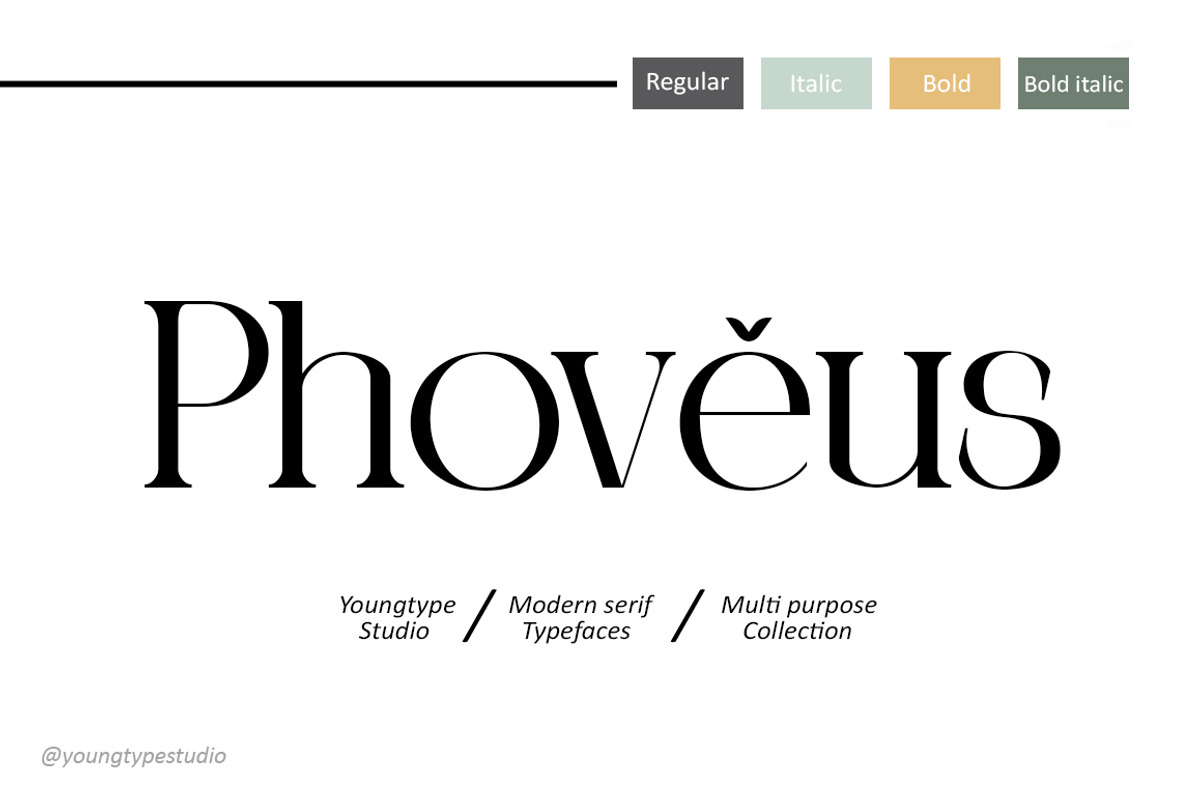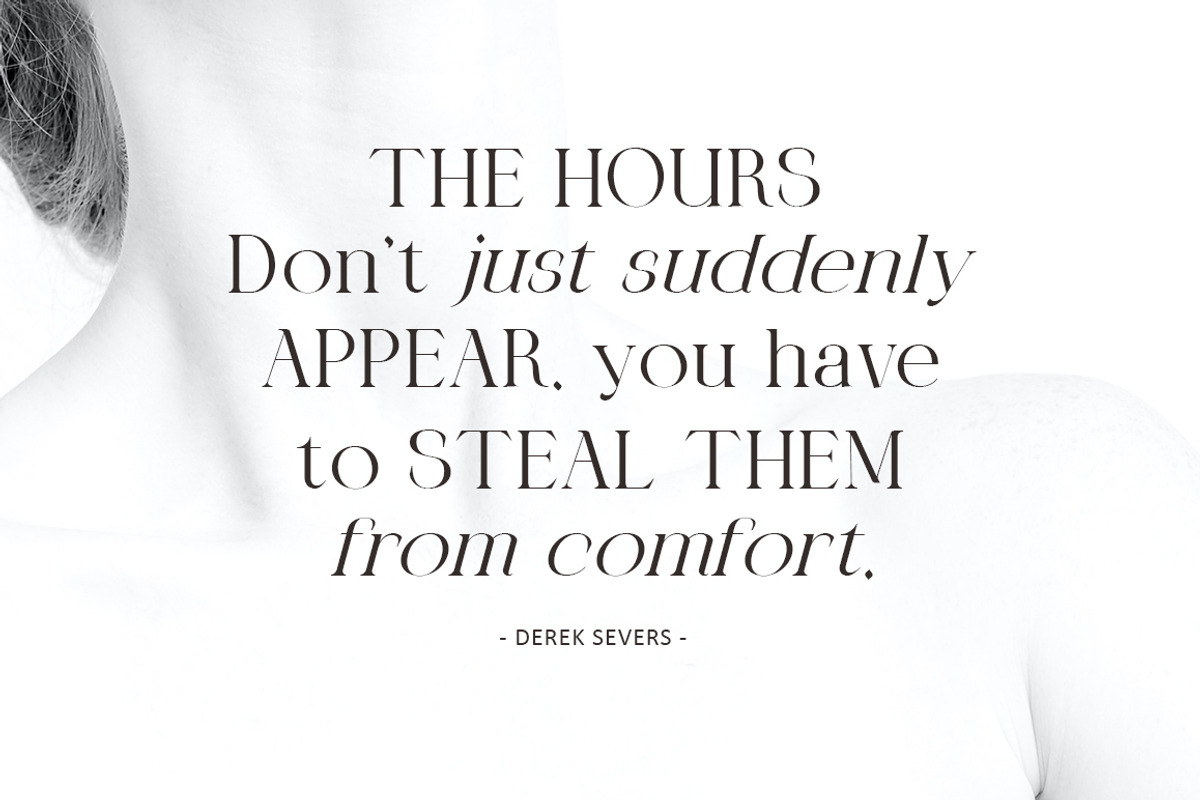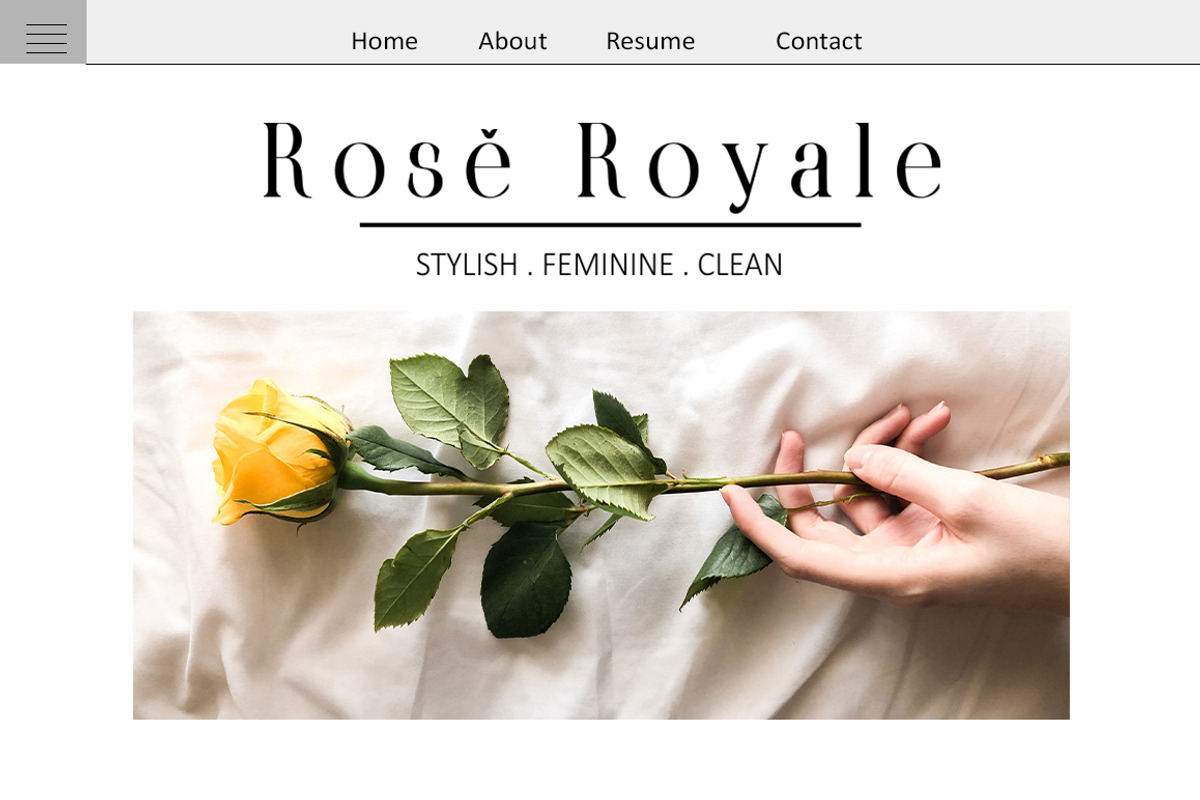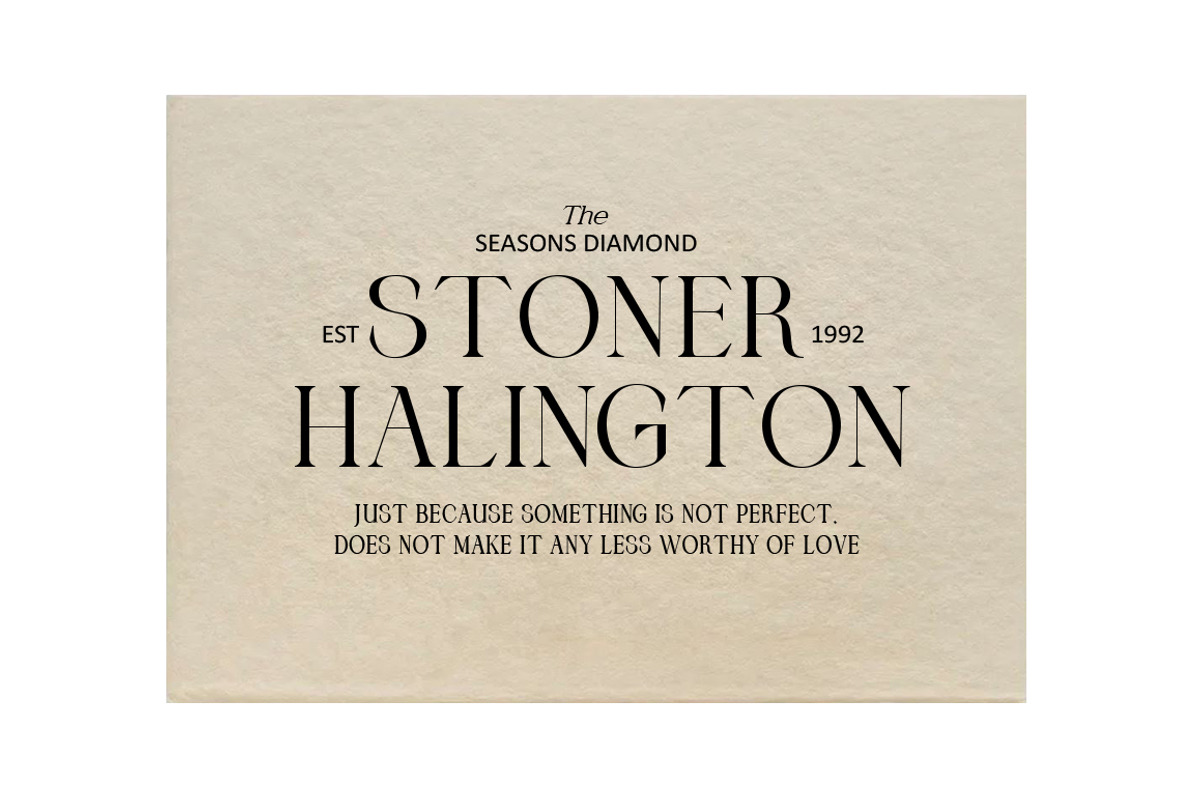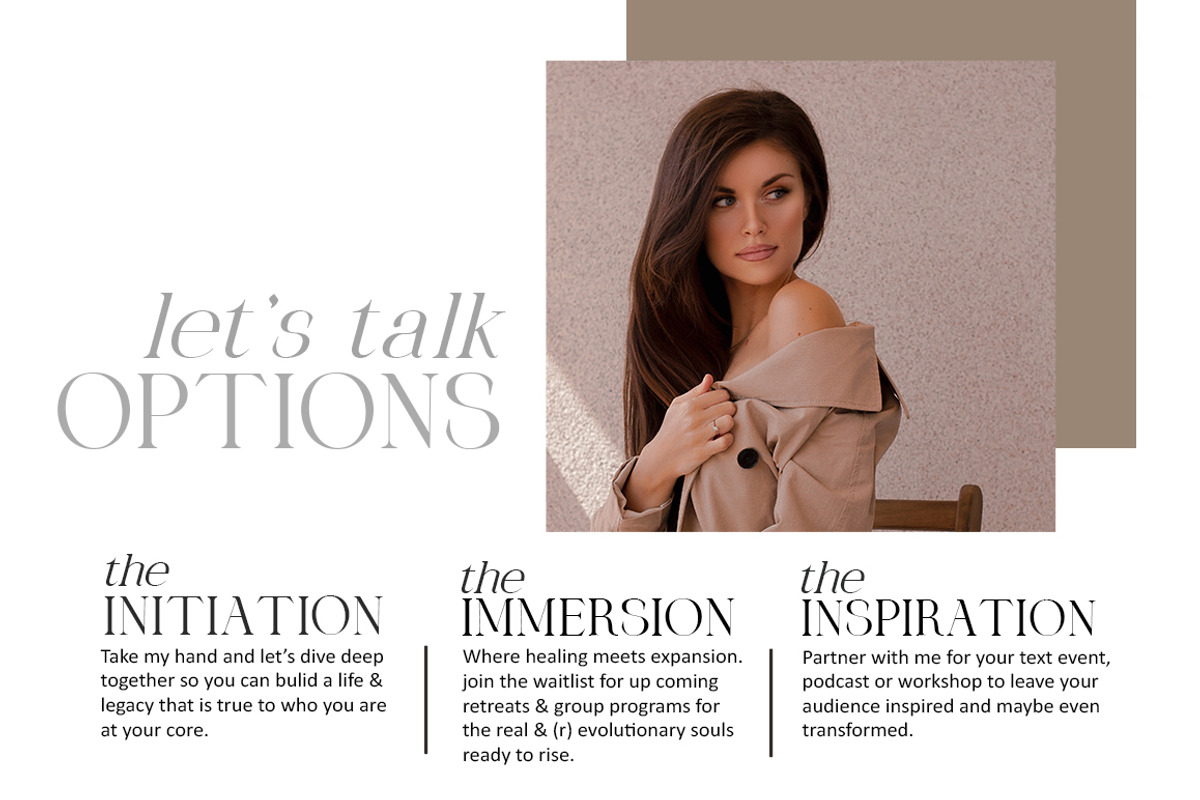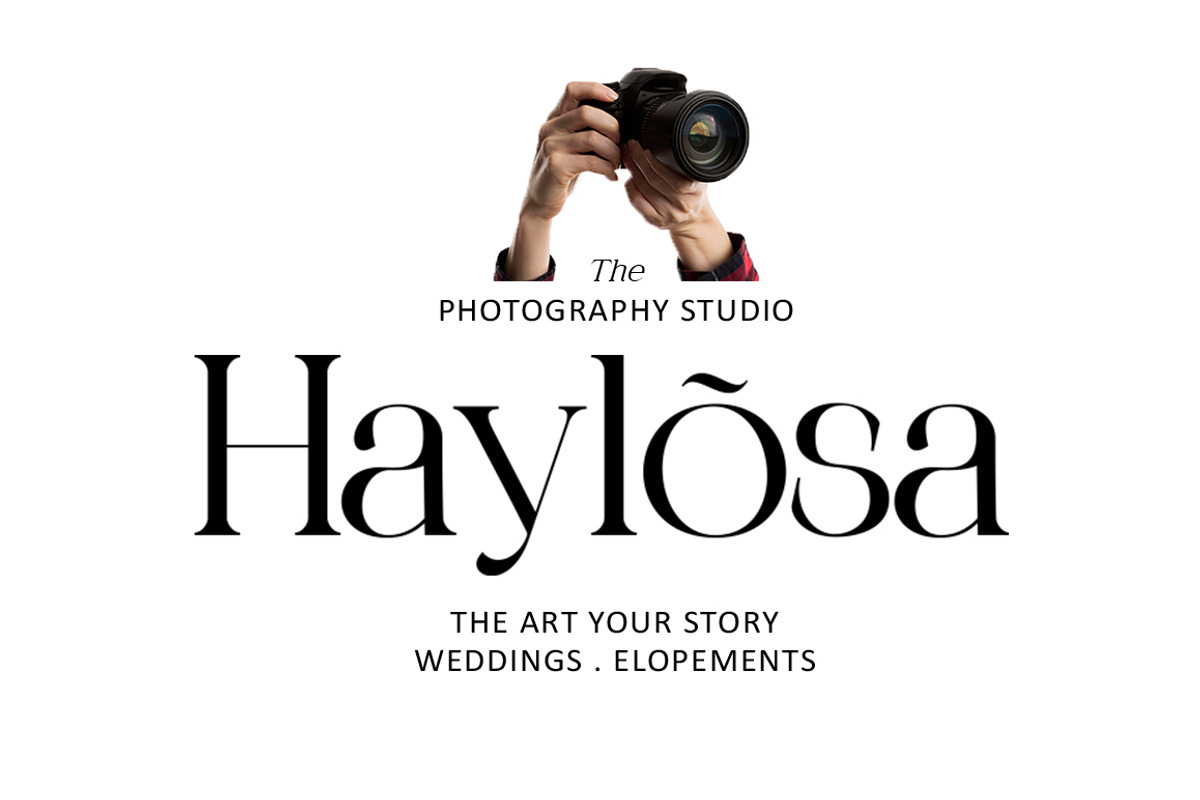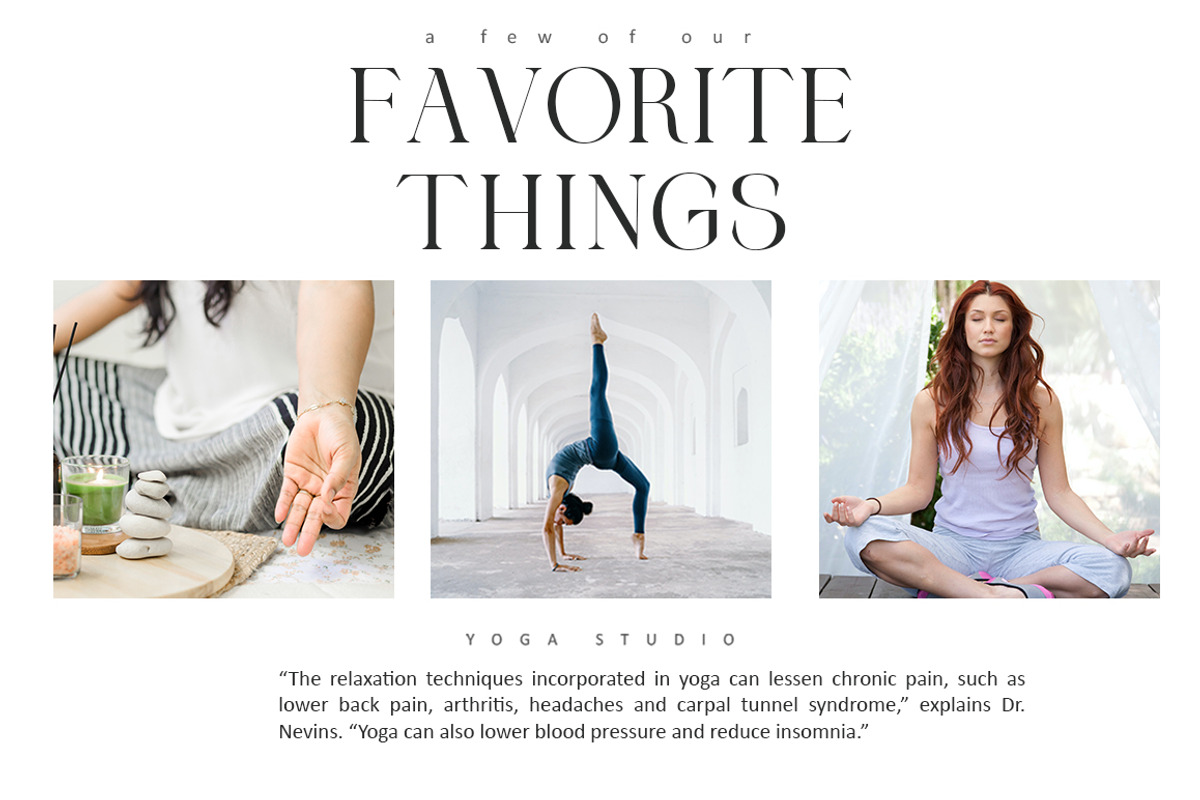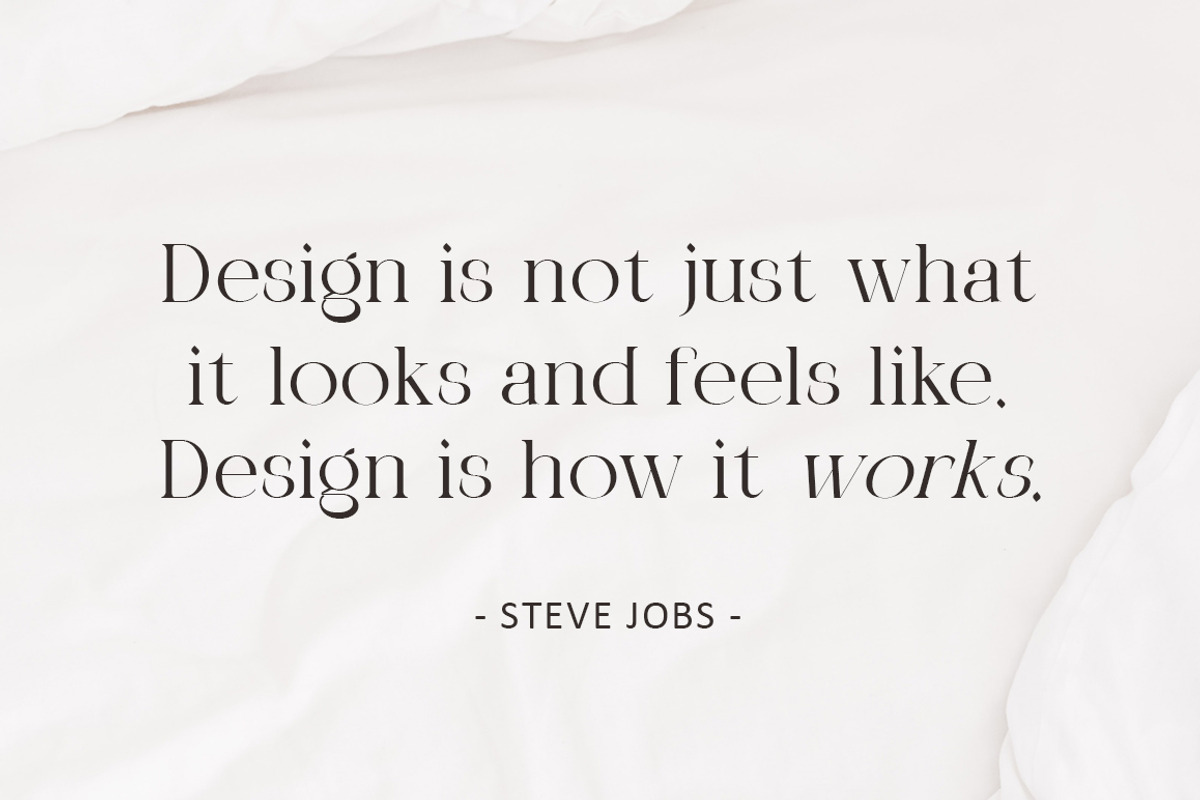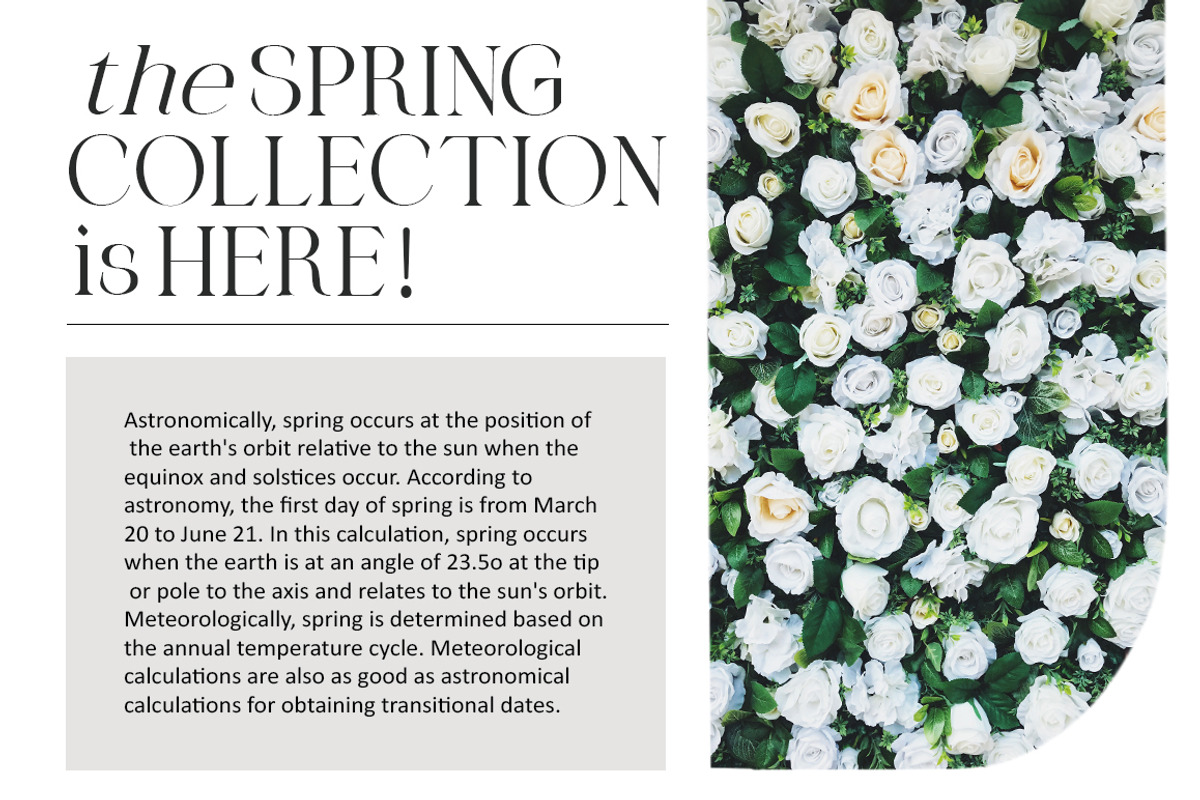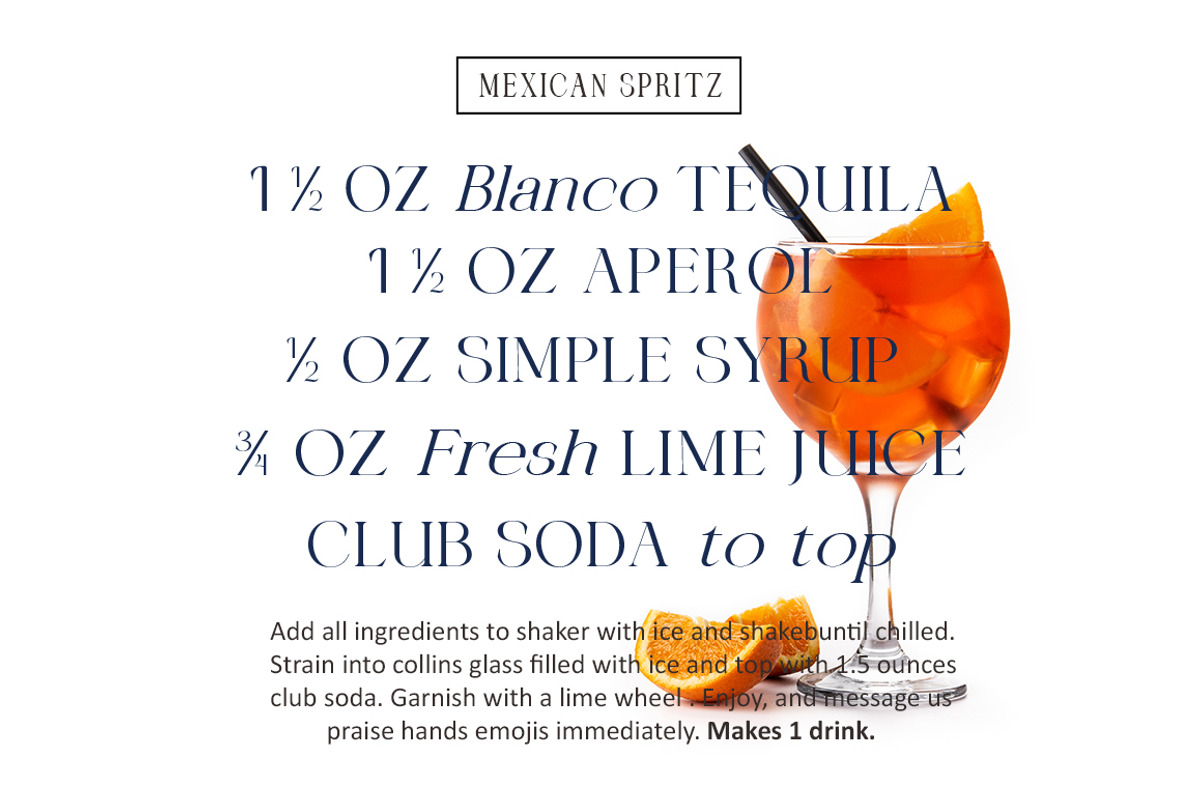
Phoveus
Phoveus Modern Serif, This professional resource is also powerful because each font has its own magical design. Comes with four versions Regular, Italic, Bold, Bold Italic.
You can use it for almost anything like blog headers, posters, wedding elements, t-shirts, clothing, book covers, business cards, greeting cards, branding, invitations and quotes and so on.
Feature:
Lowercase
Number
Accent (multilingual character)